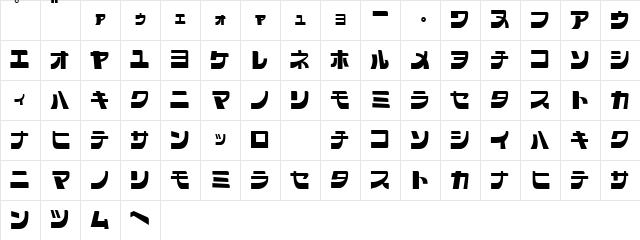
SCRAP KANA Free Font
SCRAP KANA
Style: KANA
Design Context for SCRAP
SCRAP is a composed and adaptable typeface that performs quietly and consistently across a wide range of design contexts.